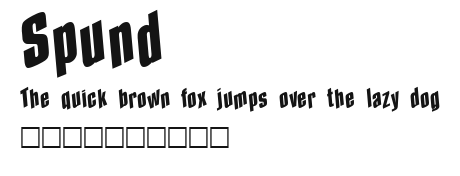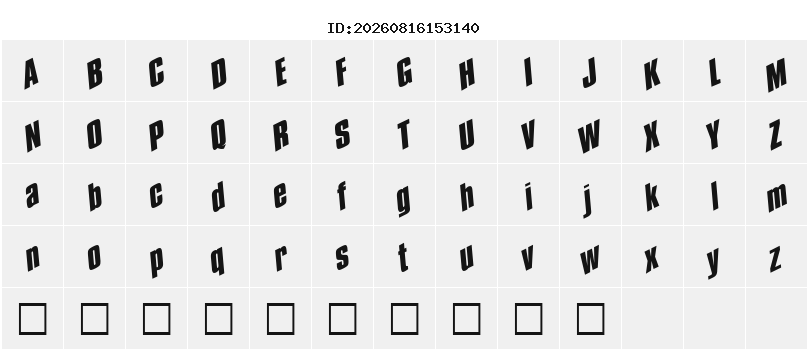
Spund Preview
• Font Name: Spund
• Full Font Name: Spund
About Spund.ttf
Spund.ttf is a modern, elegant sans-serif font designed for ultimate readability and visual harmony. Perfect for branding, headlines, web design, and print materials.